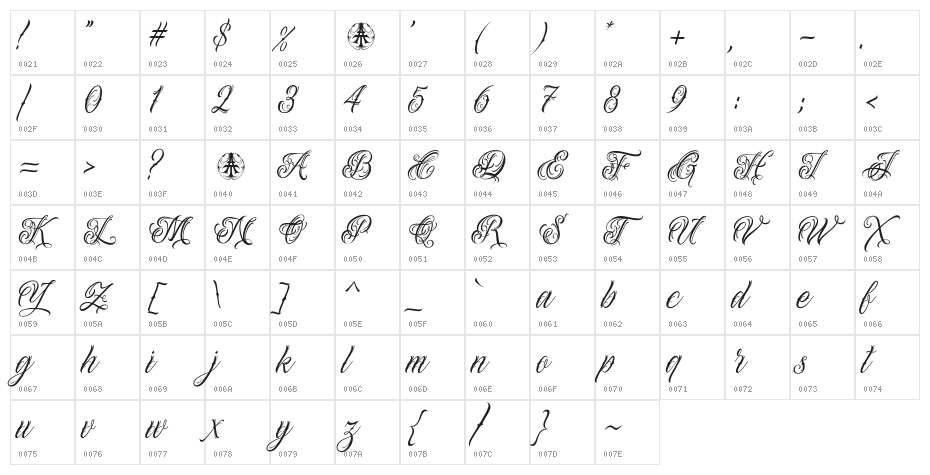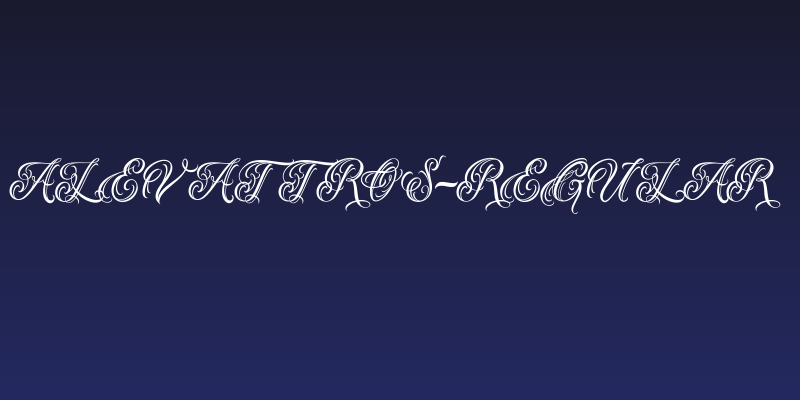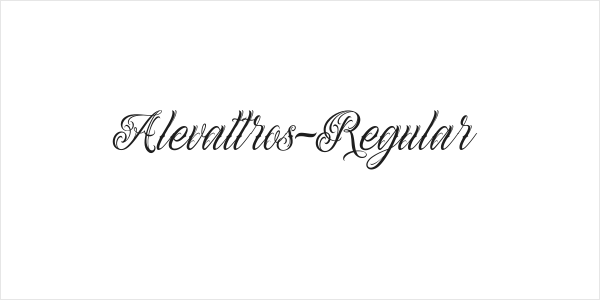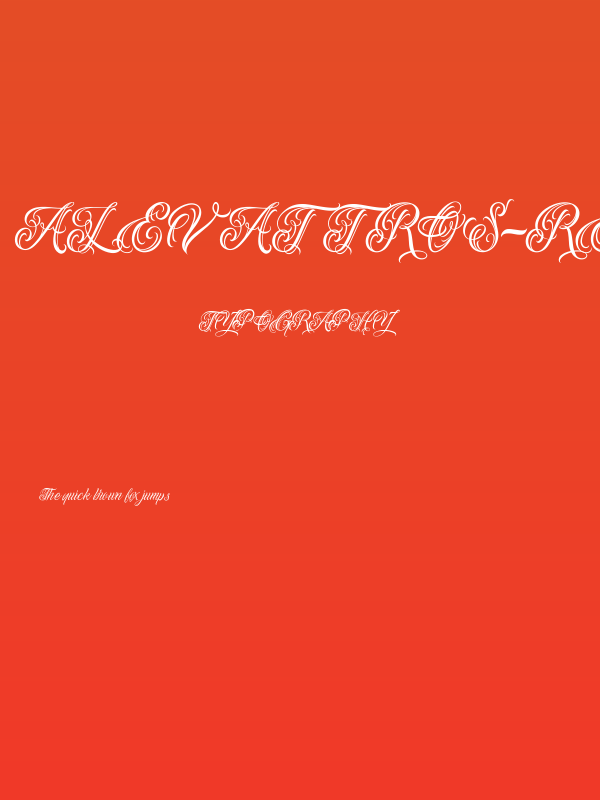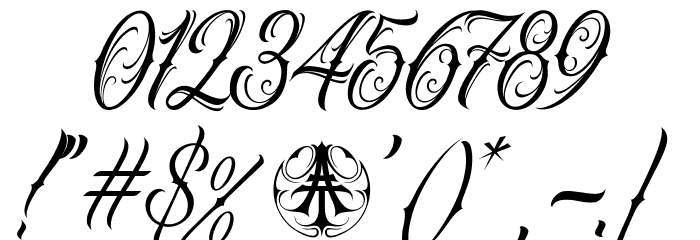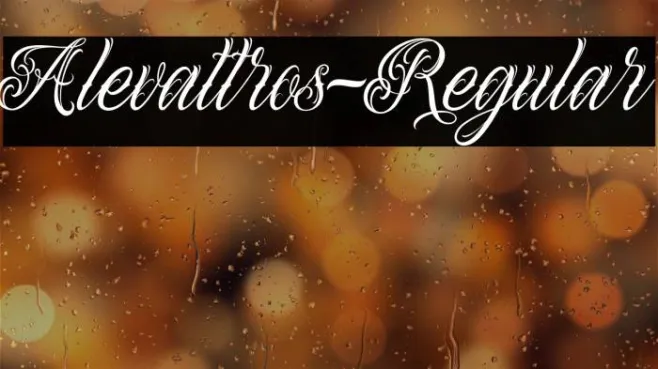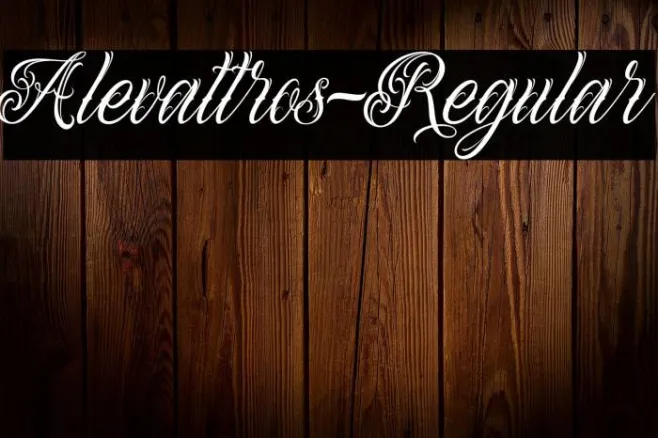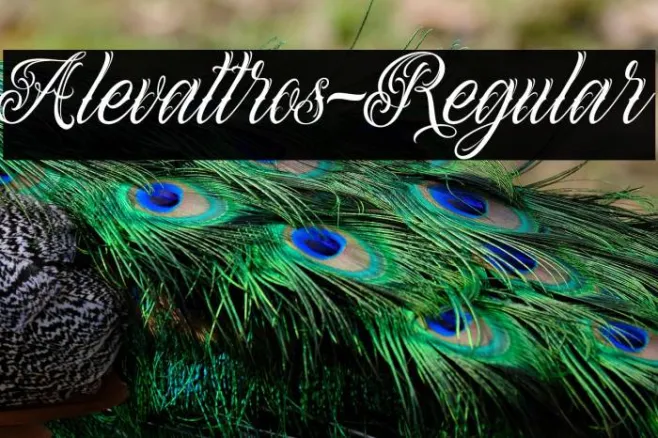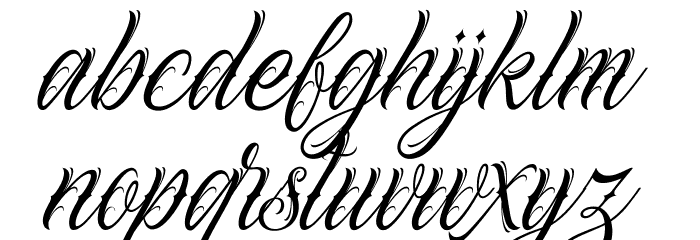
Alevattros-Regular Font
Alevattros-Regular Description
This font features an elaborate and ornate script style, characterized by its intricate swirls and flourishes. The uppercase letters are particularly decorative, with each character showcasing unique embellishments that give the font a luxurious and elegant appearance. The lowercase letters maintain a consistent flow, with smooth, cursive lines that enhance readability while retaining the decorative nature. Numerals are designed with similar attention to detail, ensuring they match the overall aesthetic. Special characters are equally ornate, making this font suitable for projects that require a touch of sophistication and artistry.
| Proposed Projects | Ideal for wedding invitations, luxury branding, elegant packaging, and artistic posters. |